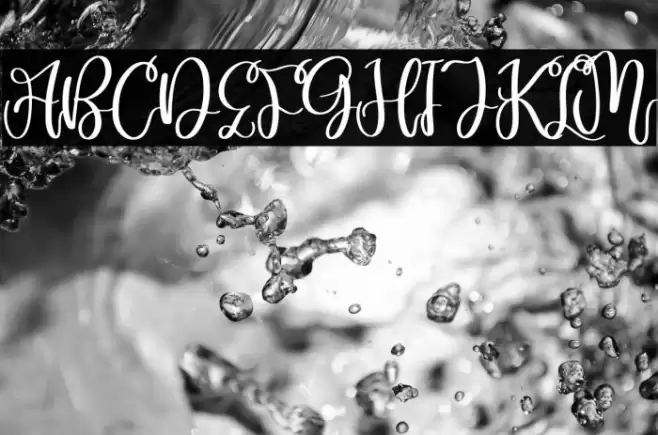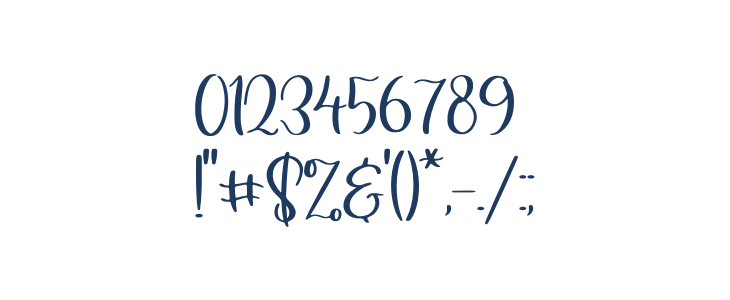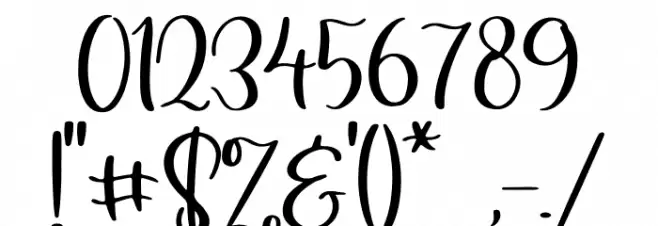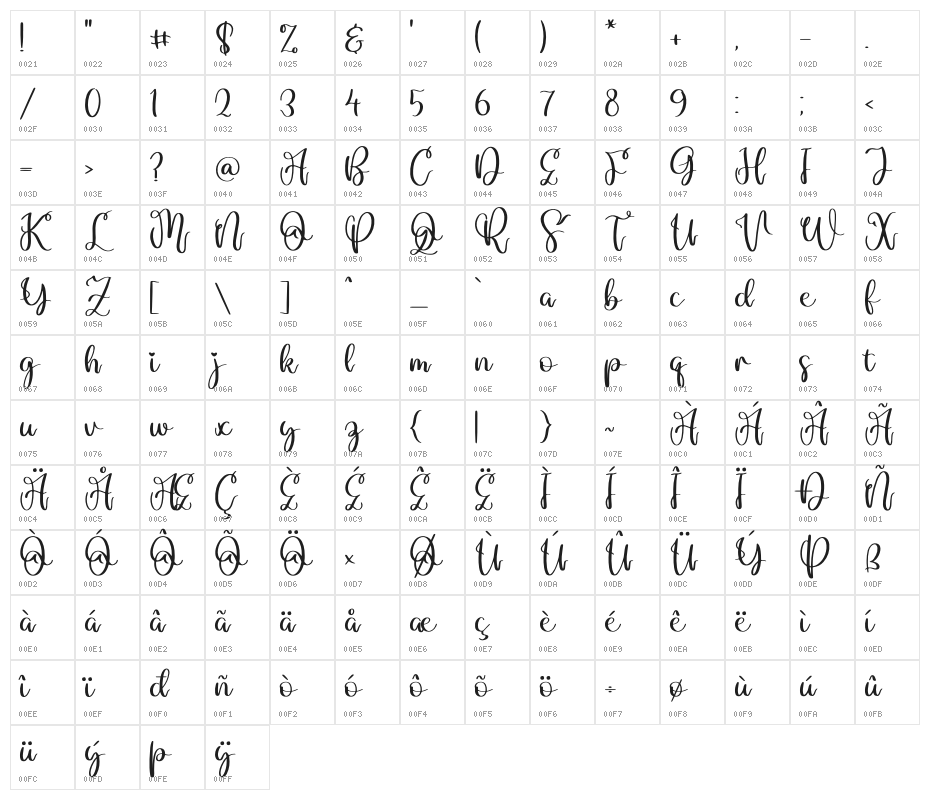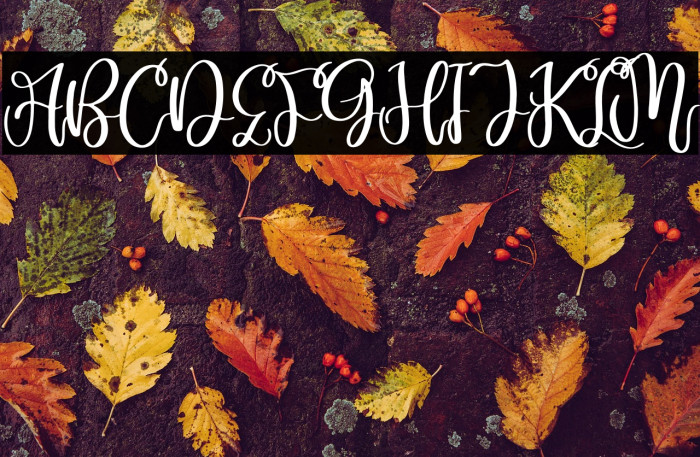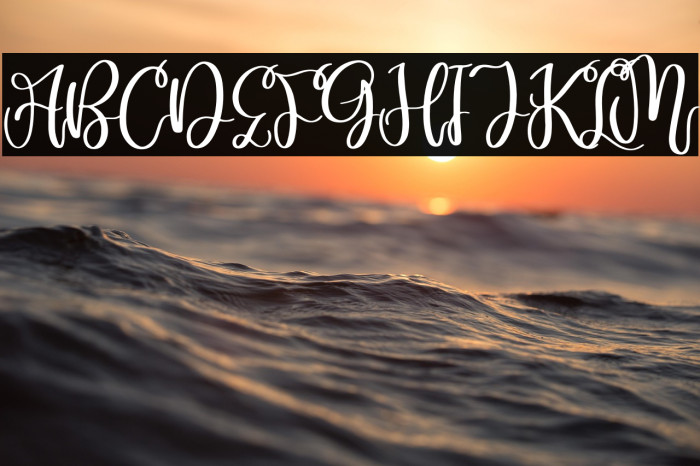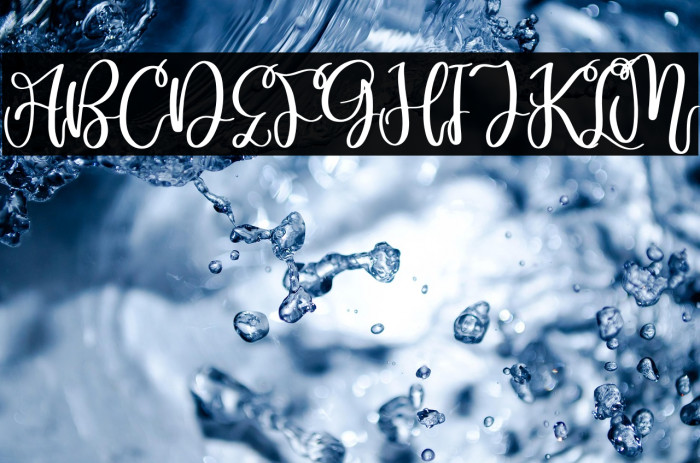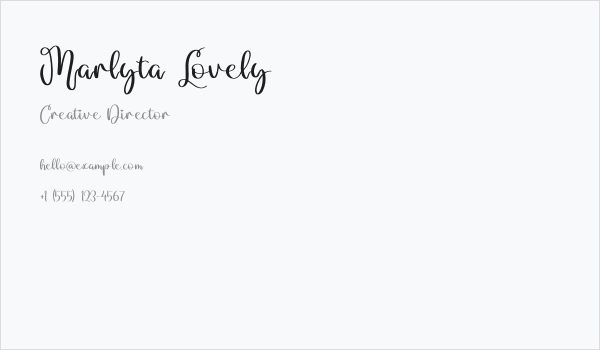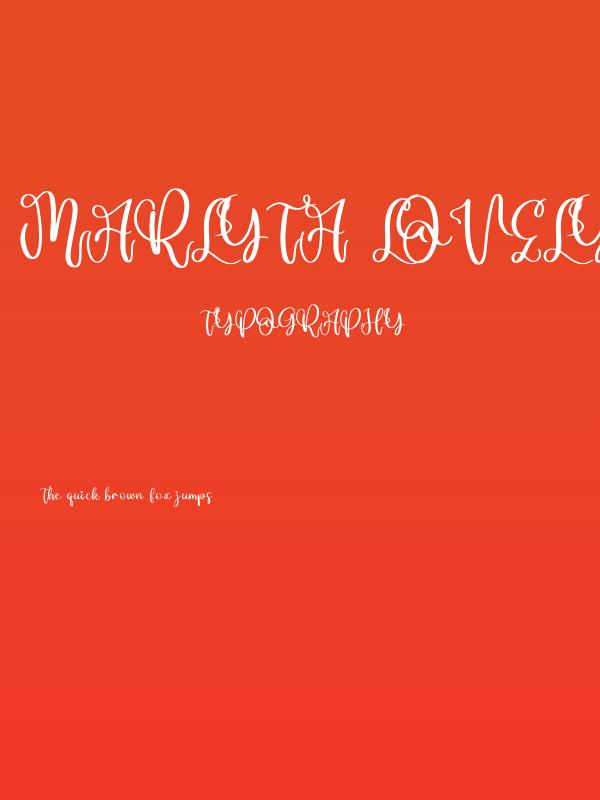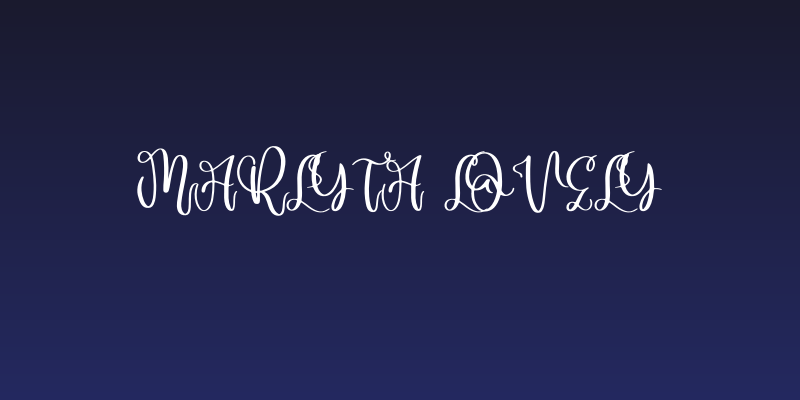
Marlyta Lovely Font
Marlyta Lovely Description
This font features a flowing, cursive style that exudes elegance and charm. The letters are interconnected with smooth, sweeping curves, giving it a handwritten appearance. The uppercase letters are ornate, with loops and flourishes that add a decorative touch, while the lowercase letters maintain a consistent flow, enhancing readability. The numerals and special characters are crafted with the same attention to detail, ensuring a cohesive look across all text. This font is perfect for projects that require a personal, artistic touch, such as invitations, greeting cards, and branding materials.
A flowing, cursive font with elegant, interconnected letters and decorative flourishes from Uncategorized fonts.
- Proposed Projects: Ideal for wedding invitations, greeting cards, personal branding, and artistic projects.
- Use Case: Logos, Invitations, Artistic projects